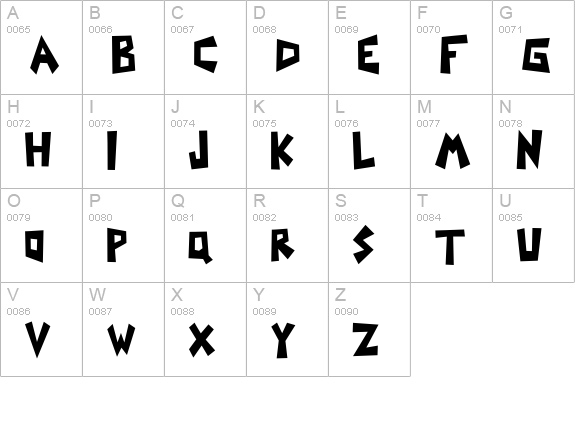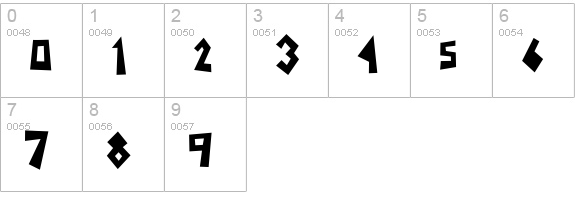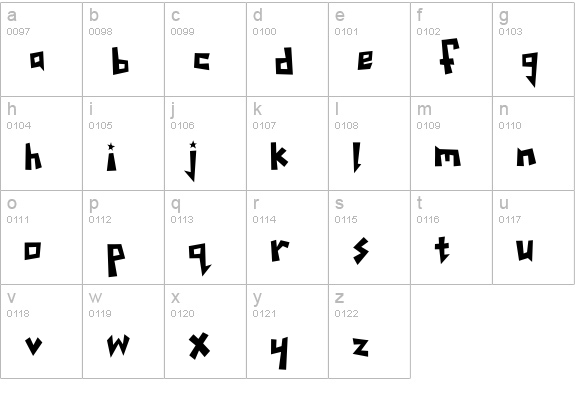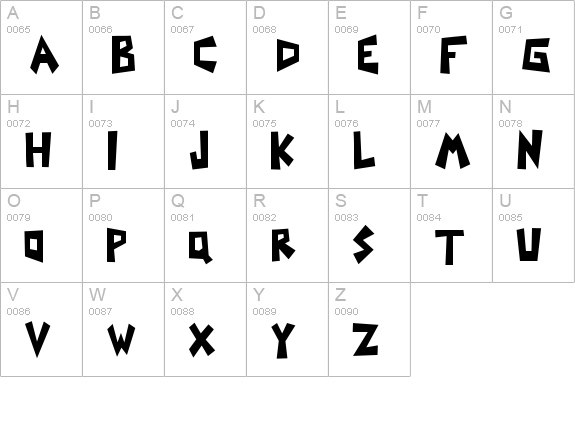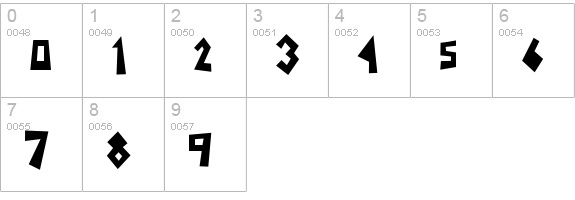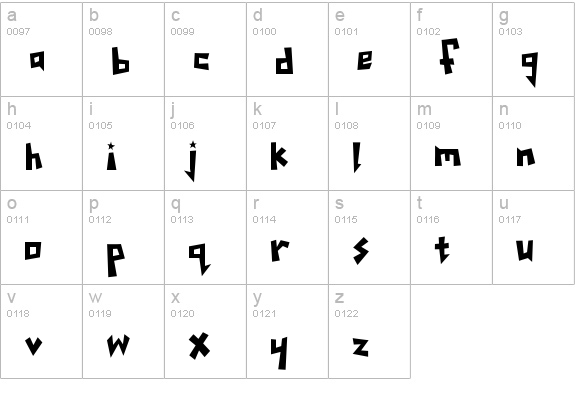
Yoinks Font Details
Introducing Yoinks font, a whimsical and playful typeface that exudes charm and creativity. With its unique and eye-catching design, Yoinks is perfect for adding a touch of fun to your projects. This font is sure to stand out and make a statement, whether used for headlines, logos, posters, or any other design application. What makes Yoinks even better is that it is completely free to download at FontsMarket.com. Yes, you read that right - this fantastic font is available for you to use at no cost, allowing you to unleash your creativity without breaking the bank. Don't miss out on the opportunity to add Yoinks to your font collection today and elevate your designs with its playful and captivating style. Download Yoinks font now and let your imagination run wild!